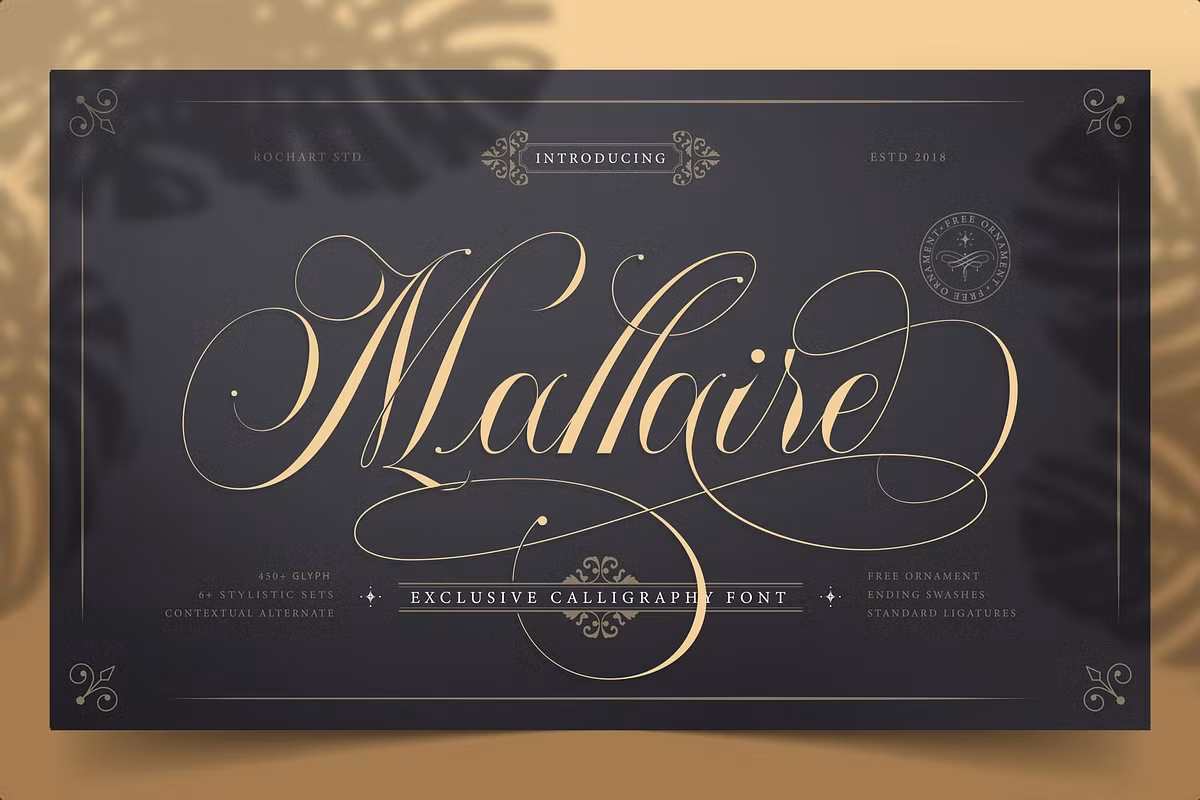
Christmas Exclusive Font || Mallaire Free Download
Christmas Exclusive Font Free Download
This festive font is perfect for Christmas greeting cards, holiday party invitations, seasonal marketing campaigns, gift wrapping designs, Christmas ornament personalization, holiday restaurant menus, winter event posters, and festive social media graphics. Its cheerful character makes it ideal for projects requiring authentic Christmas spirit and joyful holiday celebration.
Christmas Exclusive Font is exciting because it captures the magical essence of Christmas with letterforms that evoke snow-covered wonderlands, twinkling lights, and cozy fireside gatherings. The font features decorative flourishes, subtle sparkle effects, and warm character details that instantly transport viewers to cherished holiday memories. Its exclusive design ensures your Christmas projects stand out with unique festive charm that competitors cannot replicate.
The Christmas Exclusive Font family typically includes regular and ornate weights, along with decorative Christmas symbols, snowflakes, holly leaves, and festive ornaments. Many versions feature stylistic alternates with varying degrees of holiday decoration and special seasonal ligatures that enhance the celebratory atmosphere.
Whether you're creating holiday marketing materials, personal Christmas cards, or seasonal brand campaigns, Christmas Exclusive Font Free Download provides authentic Christmas magic with professional quality. This typeface transforms ordinary text into festive celebrations that capture the warmth, joy, and wonder of the holiday season. Its distinctive seasonal character adds immediate holiday appeal to any design while maintaining excellent readability, making it an essential resource for designers who specialize in Christmas and winter-themed projects that celebrate the most wonderful time of the year.